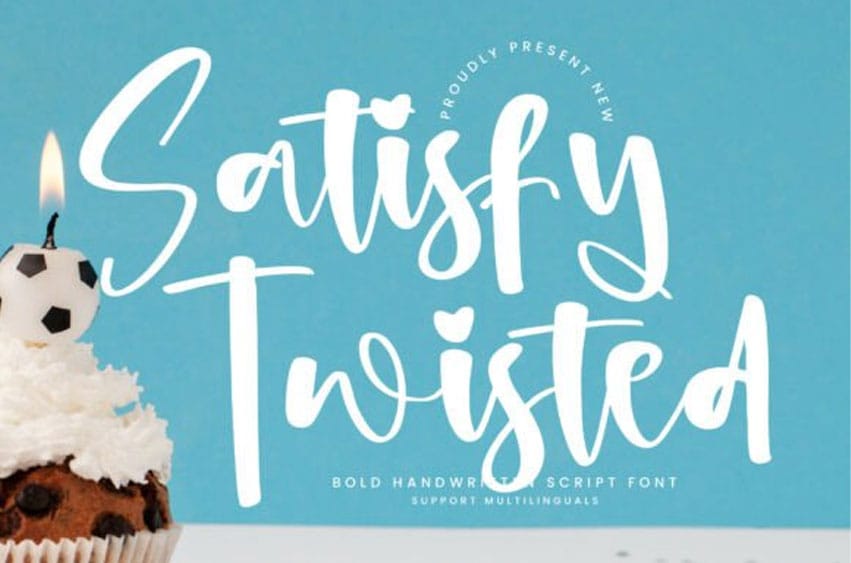
Satisfy Twisted Font handwritten script font blends bold strokes with a fluid, modern twist, creating a style that is effortlessly elegant and full of personality. With its playful curves, smooth connections, and slightly whimsical flair, it exudes a friendly yet sophisticated vibe that’s perfect for invitations, logos, product packaging, social media graphics, or branding that needs a personal touch.
Its balanced design allows it to stand out in bold headlines while maintaining legibility in longer text, making it a versatile choice for both casual and professional projects. Satisfy Twisted ensures every design feels unique, warm, and eye-catching.